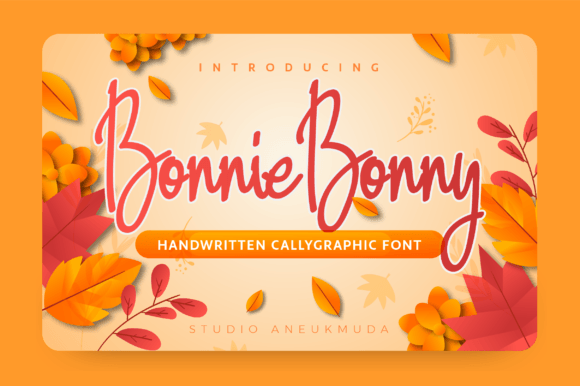
Introducing BonnieBonny Font: The Perfect Blend of Playfulness and Femininity
In the world of typography, fonts play a crucial role in conveying the tone and personality of a brand or design. When it comes to creating a lasting impression, the right font can make all the difference. If you’re looking for a font that embodies the perfect balance of playfulness and femininity, look no further than BonnieBonny. This delightful handwritten calligraphic font is designed to bring a sense of fun and charm to any project, making it an excellent choice for designers, artists, and crafty enthusiasts alike.
The Characteristics of BonnieBonny Font
BonnieBonny is a beautifully crafted font that boasts a range of characteristics that set it apart from other fonts. Some of its key features include:
- Whimsical curves: BonnieBonny’s curves are playful and inviting, adding a touch of warmth and personality to any design.
- Joyful strokes: The font’s strokes are lively and energetic, conveying a sense of happiness and enthusiasm.
- Feminine charm: BonnieBonny’s elegant and refined lines make it a perfect fit for designs that require a touch of femininity.
- Playful edge: The font’s playful edge makes it ideal for designs that require a bit of whimsy and fun.
Uses for BonnieBonny Font
BonnieBonny is a versatile font that can be used in a wide range of design projects, including:
- Invitations: Whether you’re planning a wedding, birthday party, or baby shower, BonnieBonny is the perfect font to add a touch of elegance and whimsy to your invitations.
- Greeting cards: BonnieBonny’s playful and cheerful vibe makes it an excellent choice for greeting cards, from birthday and holiday cards to thank-you notes and more.
- Social media posts: Add a touch of personality to your social media posts with BonnieBonny. Its fun and lively spirit is sure to make your posts stand out.
- Personal branding materials: If you’re looking to create a personal brand that exudes warmth, elegance, and playfulness, BonnieBonny is an excellent choice for your branding materials, including business cards, letterheads, and more.
The Benefits of Using BonnieBonny Font
So why choose BonnieBonny over other fonts? Here are just a few benefits of using this delightful font:
- Unique and eye-catching: BonnieBonny’s playful and whimsical design makes it a standout font that’s sure to grab attention.
- Versatile: This font can be used in a wide range of design projects, from invitations and greeting cards to social media posts and personal branding materials.
- Elegant and refined: Despite its playful edge, BonnieBonny is an elegant and refined font that’s perfect for designs that require a touch of sophistication.
- Easy to read: BonnieBonny is a highly legible font, making it easy for readers to quickly and easily understand your message.
Tips for Using BonnieBonny Font
To get the most out of BonnieBonny, here are a few tips to keep in mind:
- Use it sparingly: While BonnieBonny is a beautiful font, it’s best used sparingly to avoid overwhelming the reader. Use it for headings, titles, or key messages to add emphasis and visual interest.
- Pair it with complementary fonts: BonnieBonny pairs well with a range of fonts, including sans-serif fonts like Arial or Helvetica. Experiment with different font combinations to find the perfect pairing for your design.
- Experiment with colors: BonnieBonny looks great in a range of colors, from bright and bold to soft and pastel. Experiment with different colors to find the perfect fit for your design.
In conclusion, BonnieBonny is a delightful handwritten calligraphic font that’s perfect for designers, artists, and crafty enthusiasts alike. Its whimsical curves, joyful strokes, and feminine charm make it an excellent choice for a wide range of design projects, from invitations and greeting cards to social media posts and personal branding materials. With its unique and eye-catching design, BonnieBonny is sure to add a touch of cheerful elegance to any project. So why wait? Try BonnieBonny today and see how it transforms your designs into something truly special!